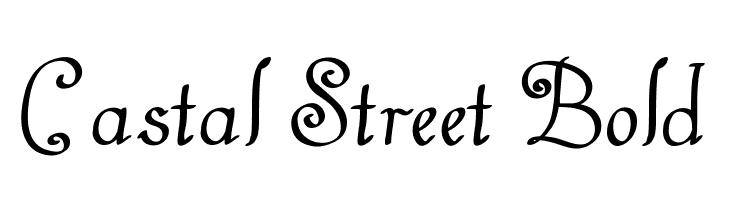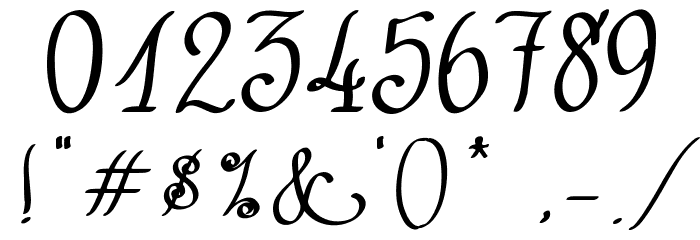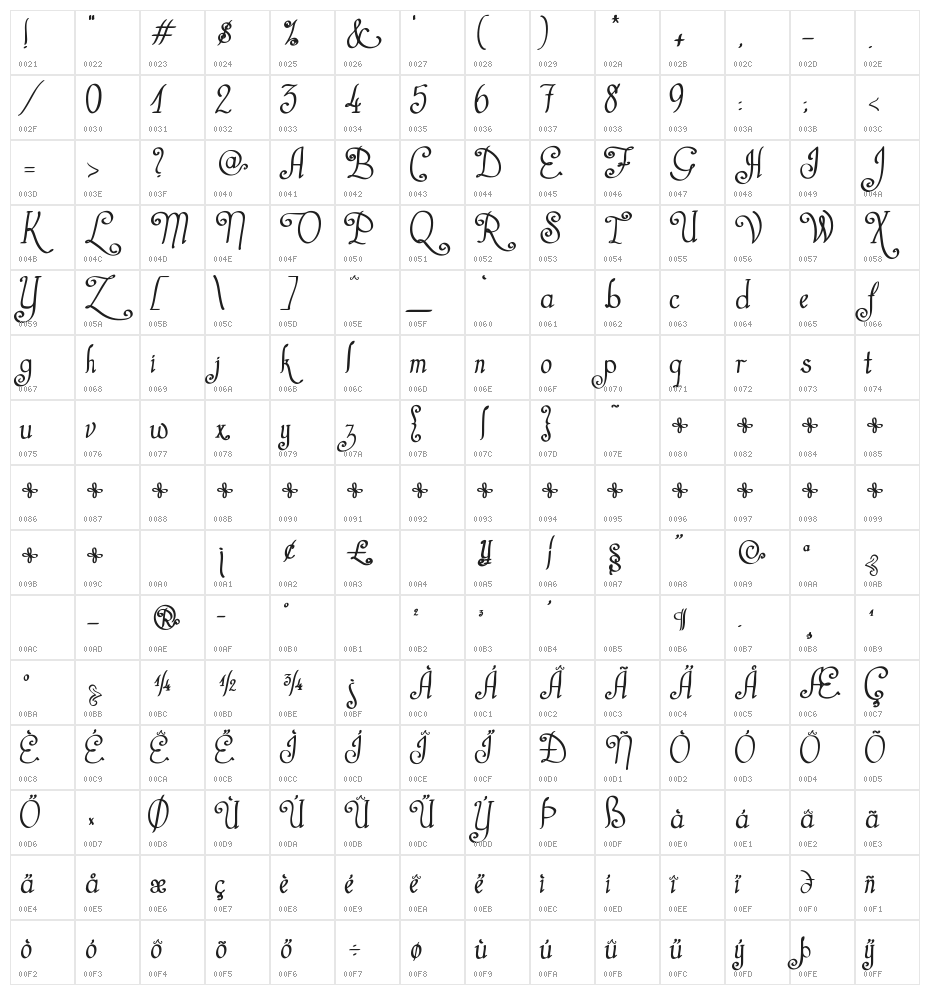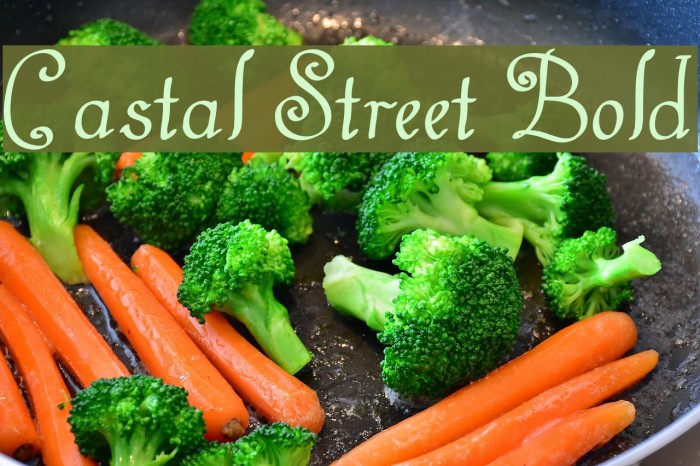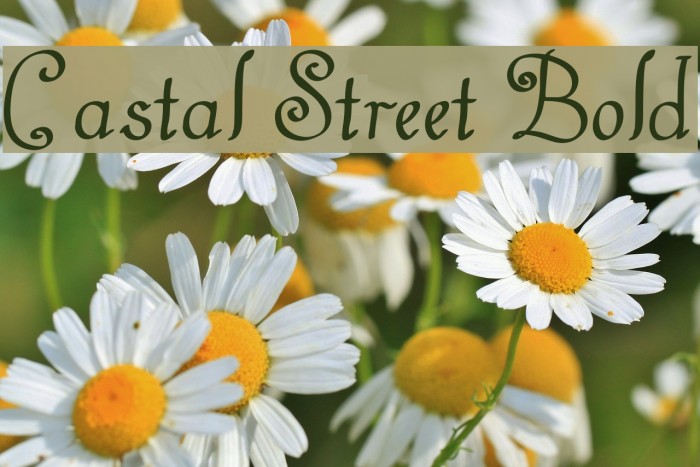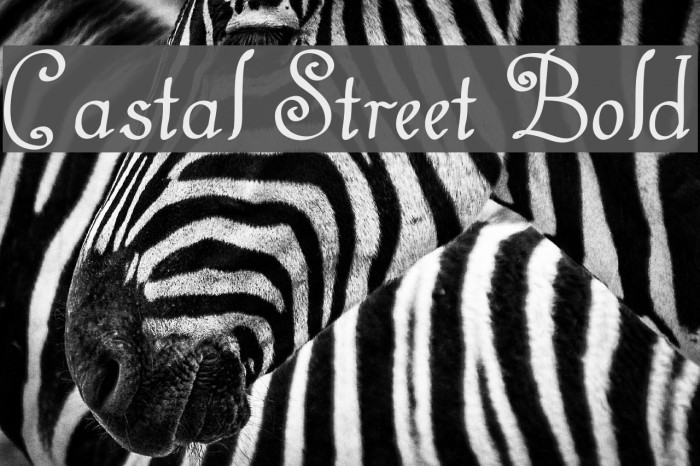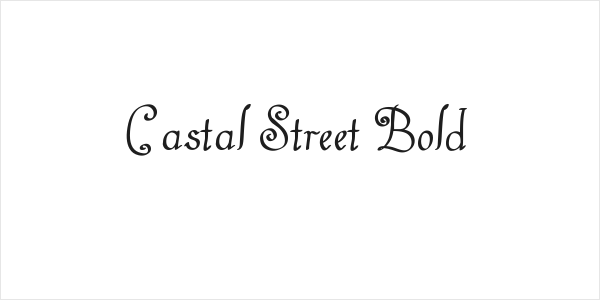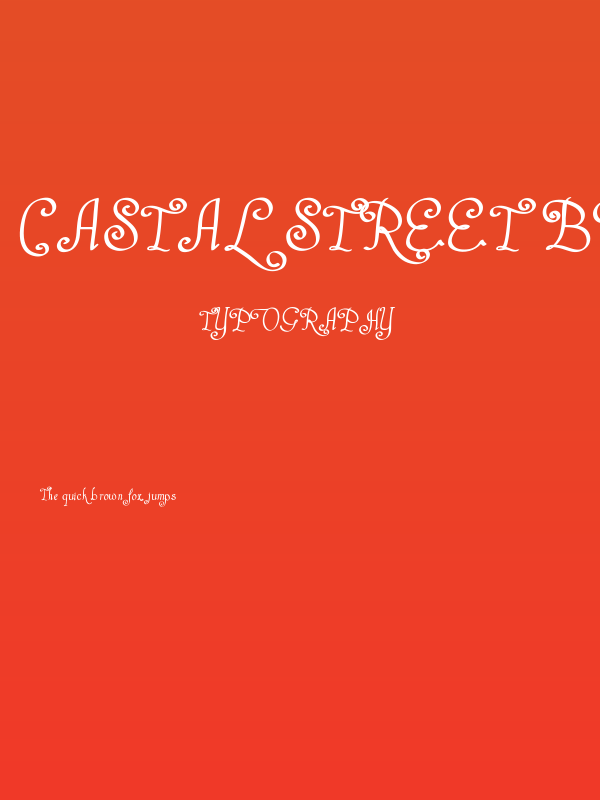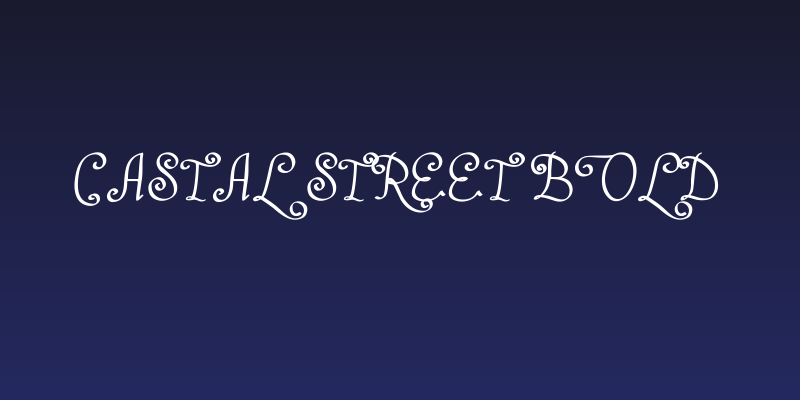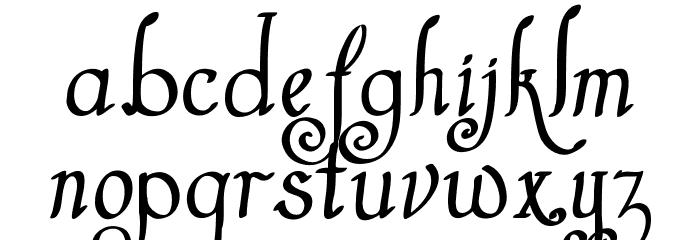
Castal Street Bold Font
Castal Street Bold Description
This font features an elegant and decorative style with intricate swirls and flourishes that add a touch of sophistication. The uppercase letters are adorned with elaborate curls, giving them a whimsical and artistic flair. The lowercase letters maintain a more traditional script appearance but still incorporate subtle embellishments that enhance their visual appeal. The numerals are consistent with the overall decorative theme, featuring slight curves and unique styling. Special characters are crafted with the same attention to detail, making them suitable for creative and expressive design projects.
Use CaseHeadlines, Logos, Invitations
Proposed ProjectsIdeal for wedding invitations, greeting cards, branding, and decorative headlines.